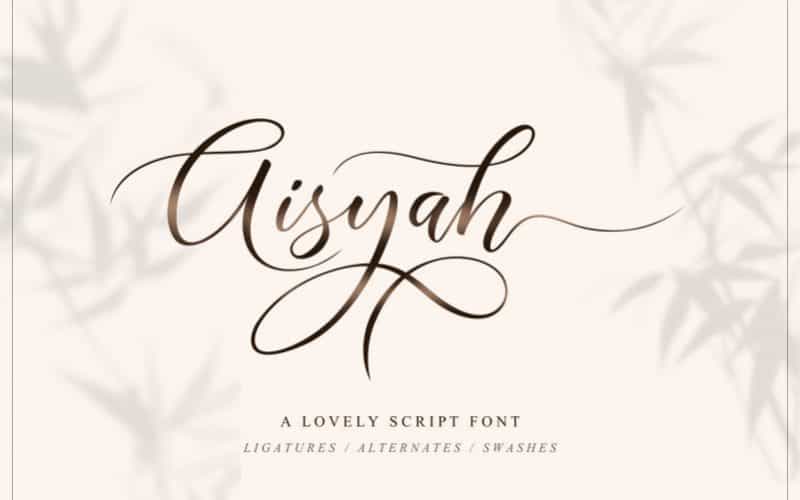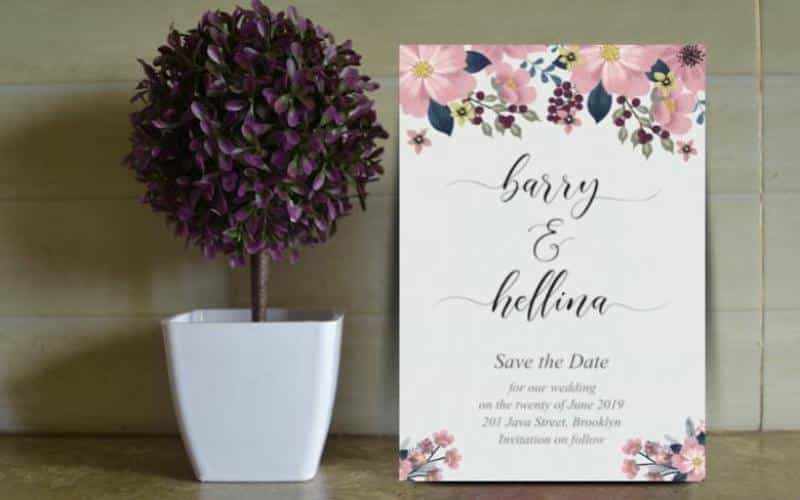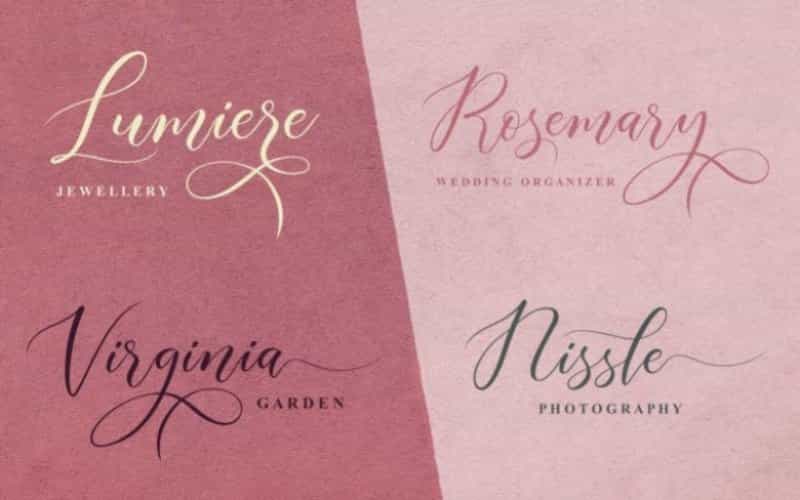
The Aisyah is a lovely and sophisticated modern font that has a very gentle touch. It will be a piece of cake to make any design project to shine with its classic beauty.